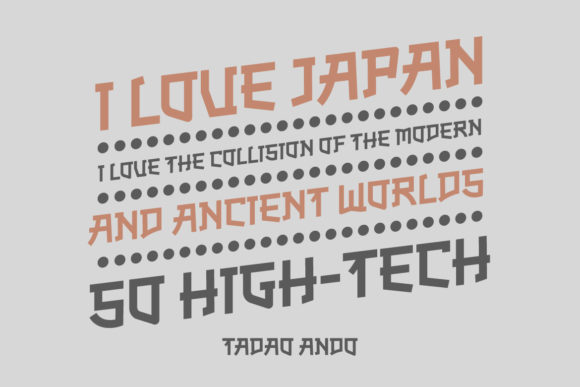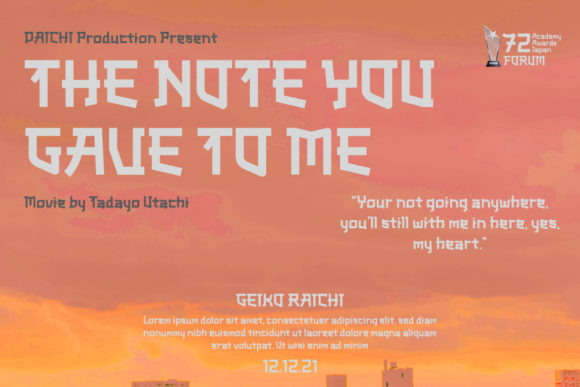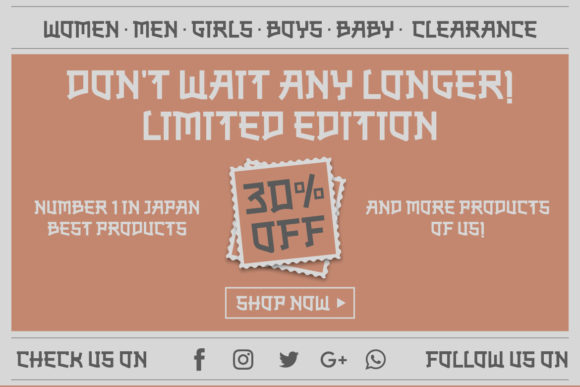
Unlock the Charm of Akisa Faux Japanese Font
Have you ever stumbled upon a quirky font that instantly sparks your creativity? You know, that moment when a font’s unique charm takes over, and you’re inspired to create something truly remarkable. For designers, this feeling is a familiar one, and it’s exactly what Akisa Faux Japanese Font has to offer.
Akisa Faux Japanese Font is a delightful display typeface designed to bring a touch of whimsy to your design projects. With its amusing characters, this font is perfect for logotypes, food banners, branding, brochure, posters, movie titles, book titles, quotes, and more. By incorporating Akisa Faux Japanese Font into your designs, you’ll create projects that are not only visually striking but also memorable and engaging.
As a valuable asset for designers, Akisa Faux Japanese Font offers a unique opportunity to stand out from the crowd and leave a lasting impression on your audience. So why not give it a try and see how this charming font can elevate your designs to the next level?
Akisa Faux Japanese Font Key Features
- Font Style: Akisa Faux Japanese Font is a sans-serif font that mimics the look of Japanese typography, but with Latin characters.
- Unique Characteristics: The font’s distinctive Japanese-inspired design elements, such as the use of bold lines and geometric shapes, give it a unique and eye-catching appearance.
Akisa Faux Japanese Font Review
As a designer, I was excited to try out the Akisa Faux Japanese Font, but my experience was a mixed bag. Here’s the lowdown:
- Unique aesthetic: The Akisa Faux Japanese Font has a distinct, quirky look that can add some visual interest to your designs.
- Wide range of styles: The font comes in a variety of weights and styles, making it easy to find the perfect fit for your project.
- Easy to use: The font is relatively straightforward to work with, even for designers who are new to using faux Japanese fonts.
- Lack of authenticity: As the name suggests, the Akisa Faux Japanese Font is not a traditional Japanese font, which may be a drawback for designers who are looking for a more authentic look.
- Limited language support: The font may not support certain languages or characters, which can be a limitation for designers who need to work with a wide range of languages.
- Not ideal for small text: The font can be difficult to read at small sizes, which may make it less suitable for certain types of projects.
The Akisa Faux Japanese Font is a fun and quirky addition to any designer’s toolkit, but it may not be the best choice for every project. If you’re looking for a unique aesthetic and don’t mind the limitations, this font may be a good fit for you. However, if you need a more authentic Japanese font or require a high degree of language support, you may want to look elsewhere.
The Akisa Faux Japanese Font is ideal for:
– Creating a Japanese-inspired aesthetic without using actual Japanese characters.
– Adding a touch of cultural flair to designs.
– Experimenting with unique typography and design elements.
– Use the font in combination with other design elements to create a cohesive look.
– Experiment with different font sizes and colors to achieve the desired effect.
– Consider pairing the font with other Japanese-inspired design elements, such as kanji or cherry blossoms.